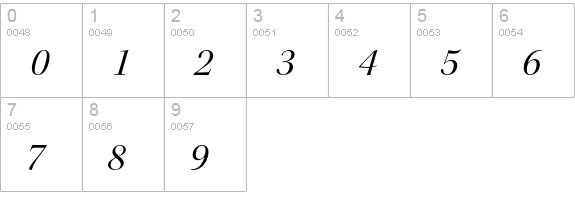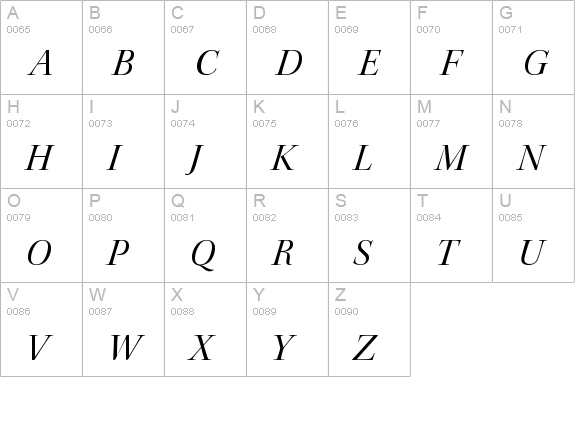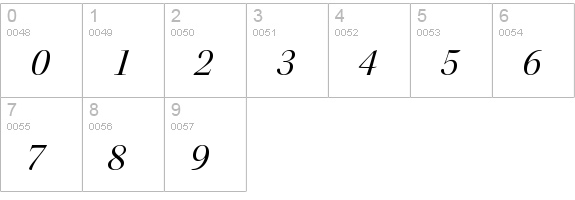
Kepler Std Italic Display Font Details
Kepler Std Italic Display is a distinctive, italic variant in the Kepler typeface family \xE2\x80\x94 well suited to design and typography projects.
The Kepler Std Italic Display font is a stunning typeface that exudes elegance and sophistication. Its graceful slant and delicate letterforms add a touch of sophistication to any design project. The italic style lends a sense of movement and dynamism, making it perfect for capturing attention and creating a memorable impression. This font is meticulously crafted with meticulous attention to detail, resulting in clean and crisp edges that ensure legibility even at small sizes. The slightly condensed letterforms allow for maximum impact while maintaining readability, making it an ideal choice for headlines, titles, and branding materials. The Kepler Std Italic Display font is versatile and adaptable, seamlessly blending with various design styles and themes. Whether used in print or digital media, it brings a sense of professionalism and refinement to any project. From fashion magazines and luxury branding to high-end advertisements and editorial layouts, this font effortlessly elevates the visual appeal of any composition. What makes the Kepler Std Italic Display font even more remarkable is that it is available for free download at FontsMarket.com. This means that designers, creatives, and enthusiasts alike can easily access and utilize this exceptional typeface without any cost. The ease of availability makes it a valuable asset for both personal and commercial projects, enabling designers to create stunning visuals without breaking the bank. In conclusion, the Kepler Std Italic Display font is a captivating typeface that combines elegance, versatility, and free availability. Its striking italic style and meticulous craftsmanship make it a standout choice for any design project. Download it freely at FontsMarket.com and unlock the potential to create visually stunning compositions that leave a lasting impression.